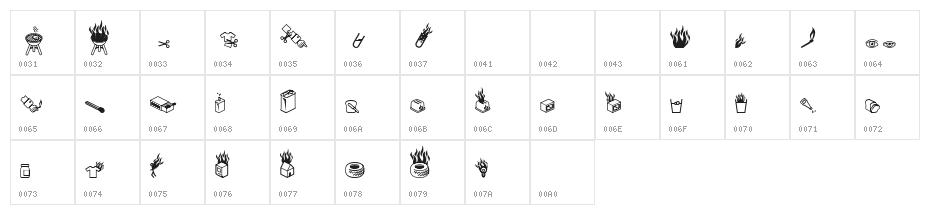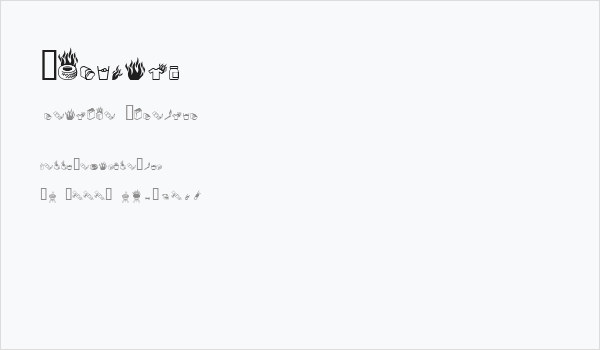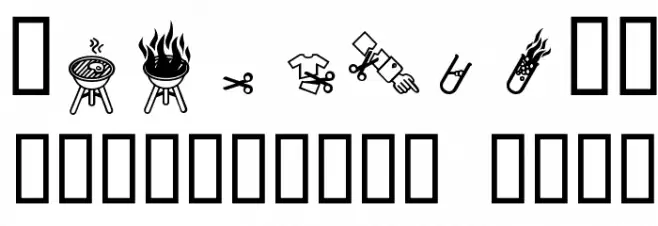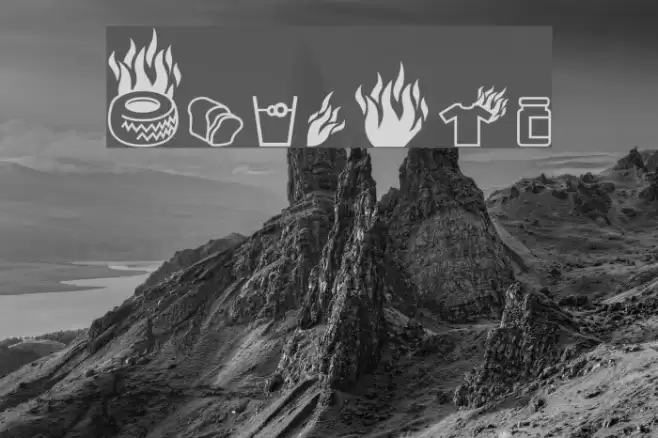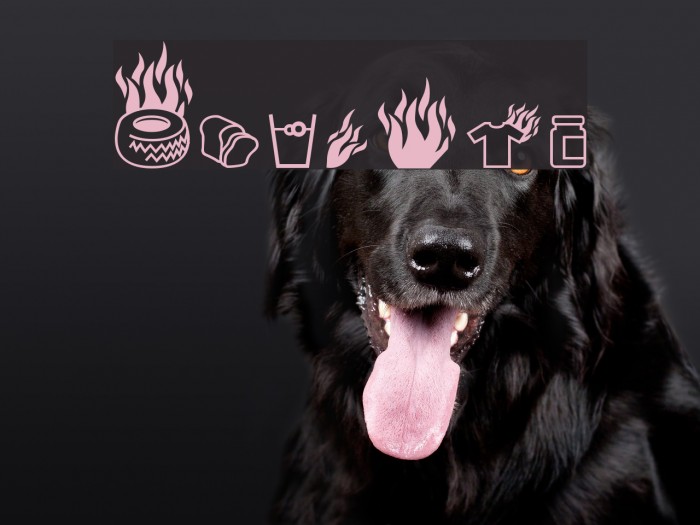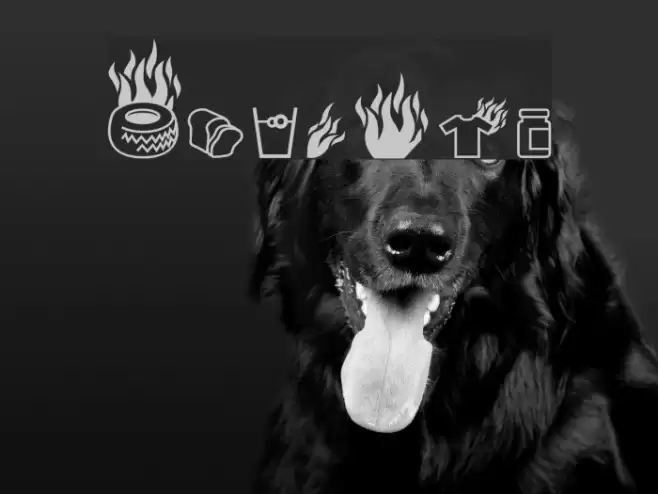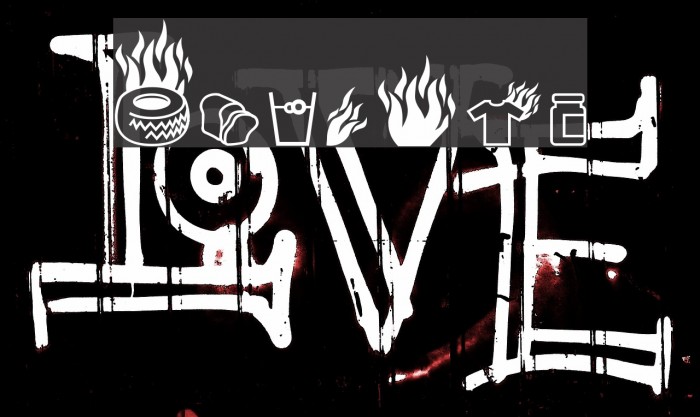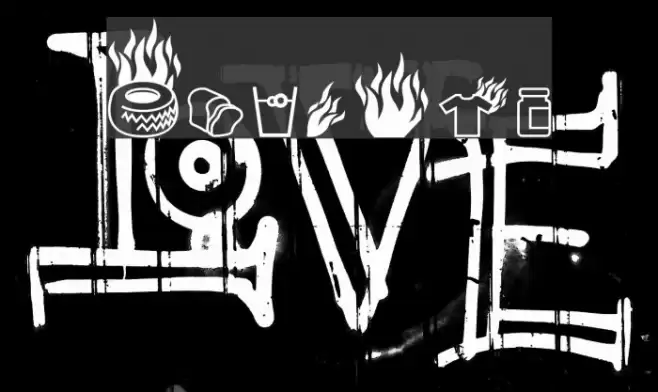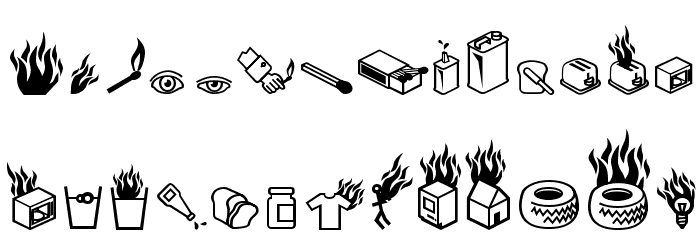
Pyrobats Font
Pyrobats Description
This is a decorative font featuring a series of playful and thematic icons related to fire and safety. Each character is represented by a unique illustration, such as flames, matches, fire extinguishers, and other fire-related symbols. The style is bold and graphic, with clear outlines and a consistent visual theme throughout. The icons are detailed yet simple enough to be easily recognizable, making them suitable for educational or thematic design projects. The font does not include traditional alphanumeric characters but instead offers a creative set of pictograms.
| Use Case | Logos, Educational materials, Themed designs |
| Proposed Projects | Ideal for educational materials on fire safety, themed posters, or creative design projects requiring illustrative icons. |